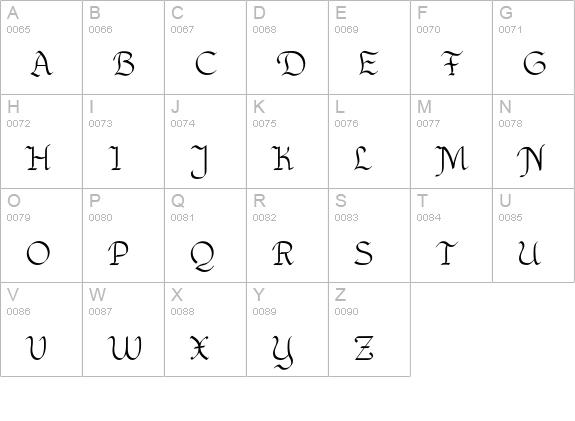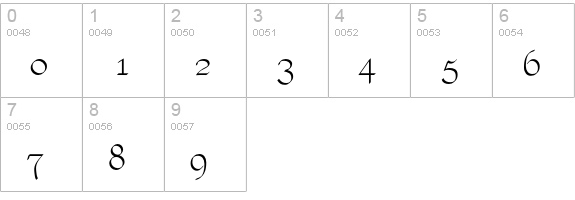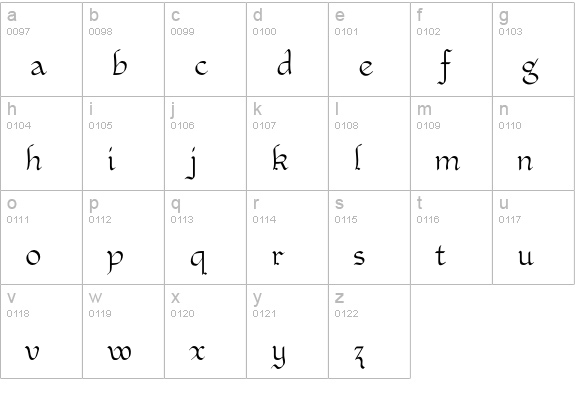
Kumulus Font Details
Introducing Kumulus font, a modern and versatile typeface designed to make your projects stand out. With its clean lines and elegant curves, Kumulus exudes sophistication and style. This font is perfect for a wide range of design projects, from branding and packaging to social media graphics and website design. What sets Kumulus font apart is not only its stunning visual appeal but also its accessibility. This font is available for free download at FontsMarket.com, making it easy for anyone to add a touch of elegance to their creations. Whether you're a seasoned designer or just starting out, Kumulus font is a must-have in your typographic toolkit. Embrace the beauty and versatility of Kumulus font and elevate your designs to new heights. Download it today and let your creativity soar!